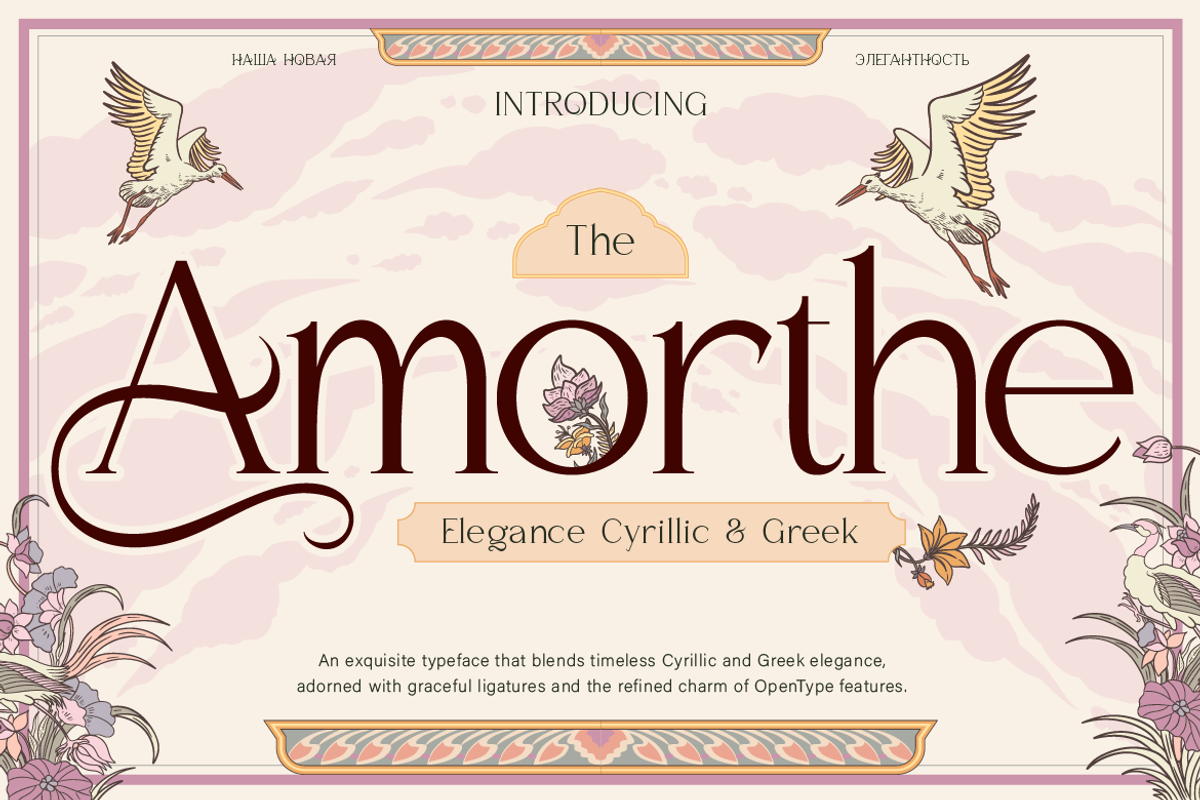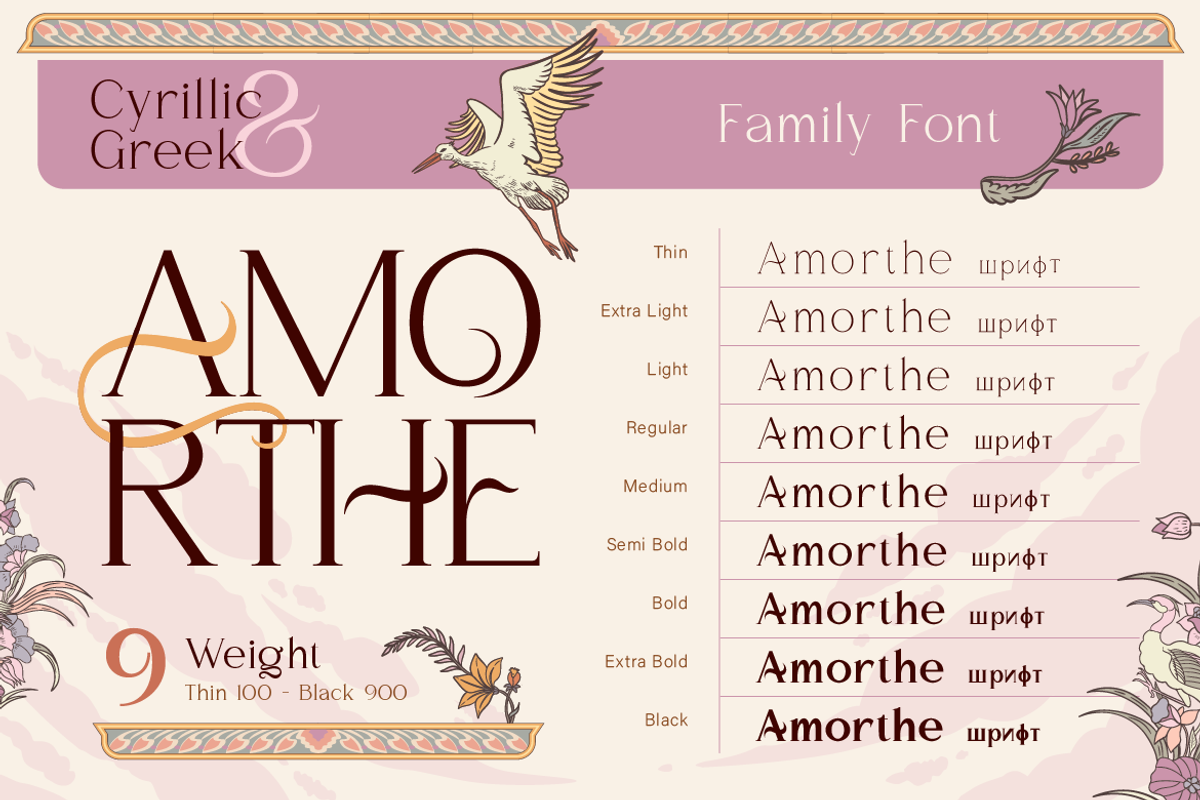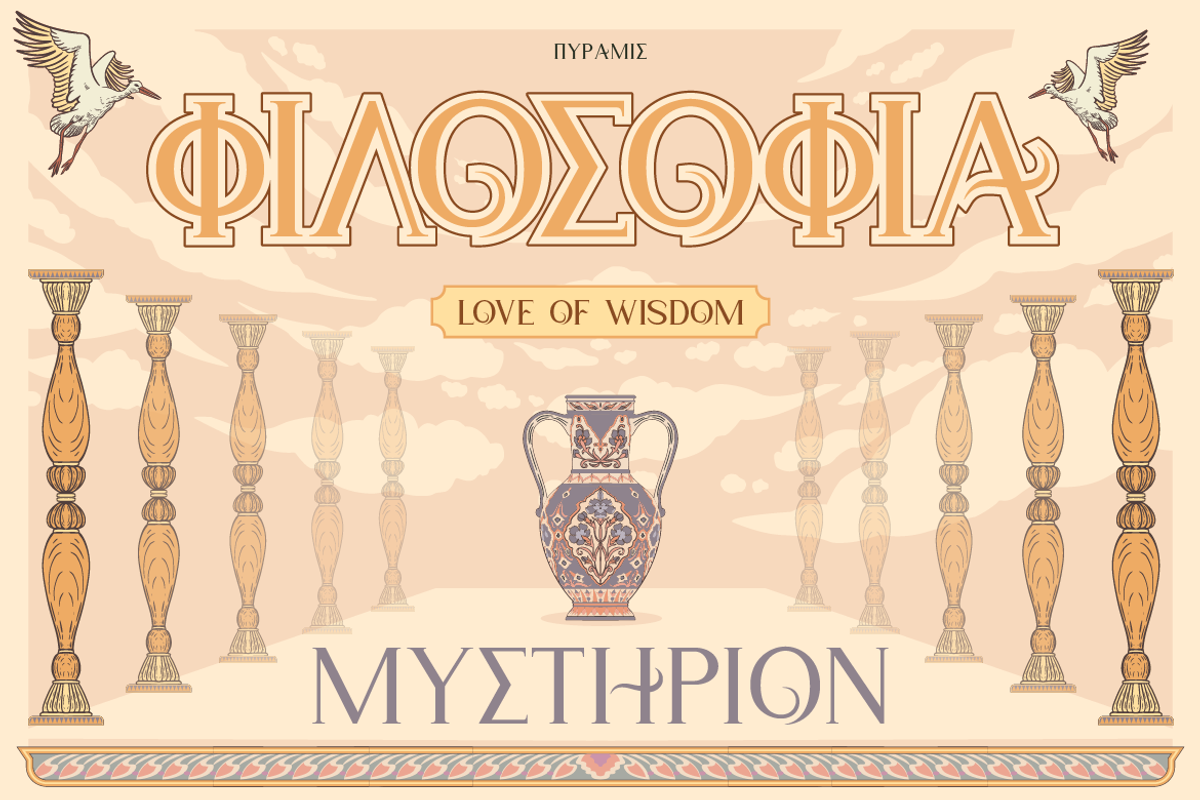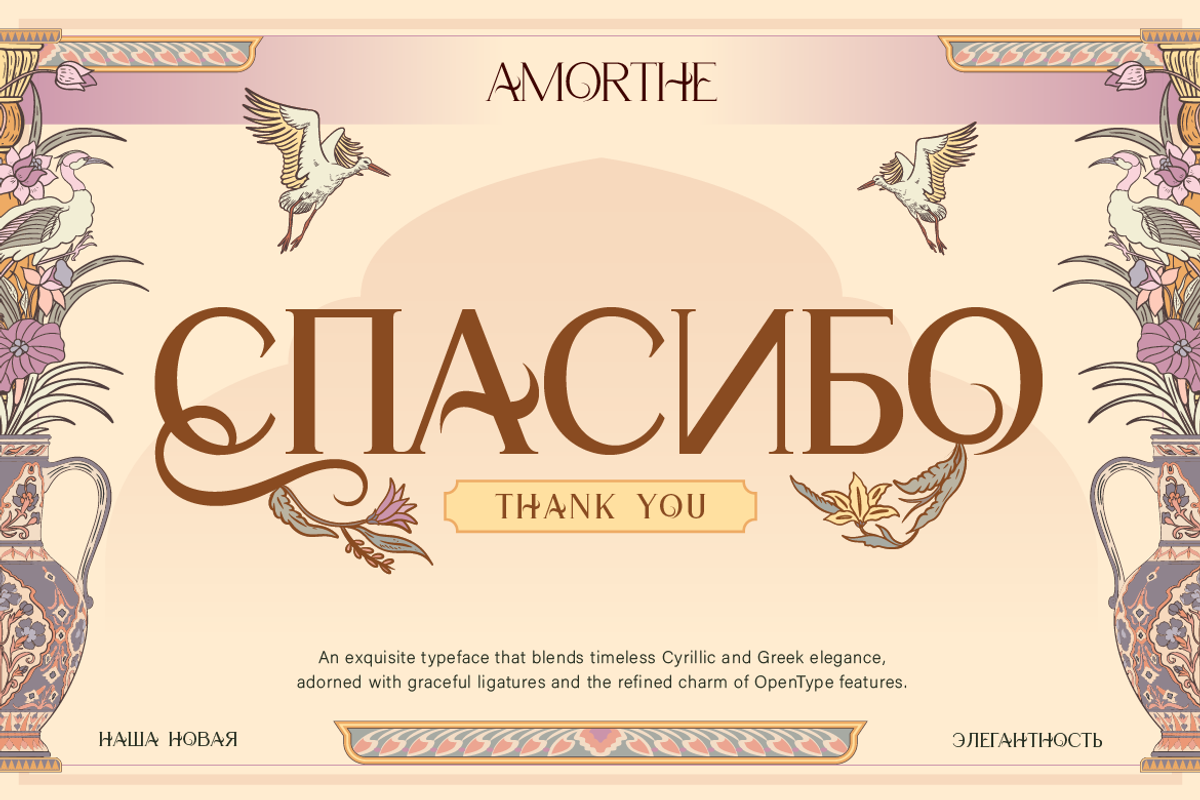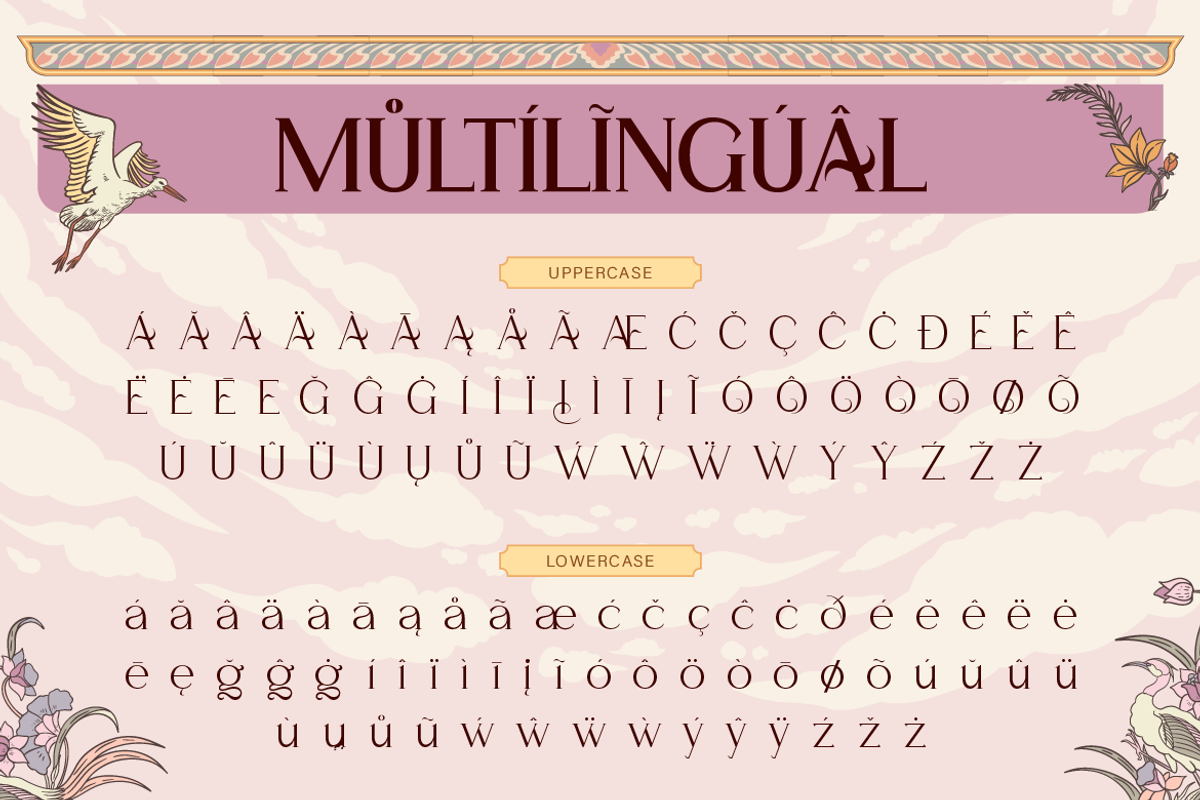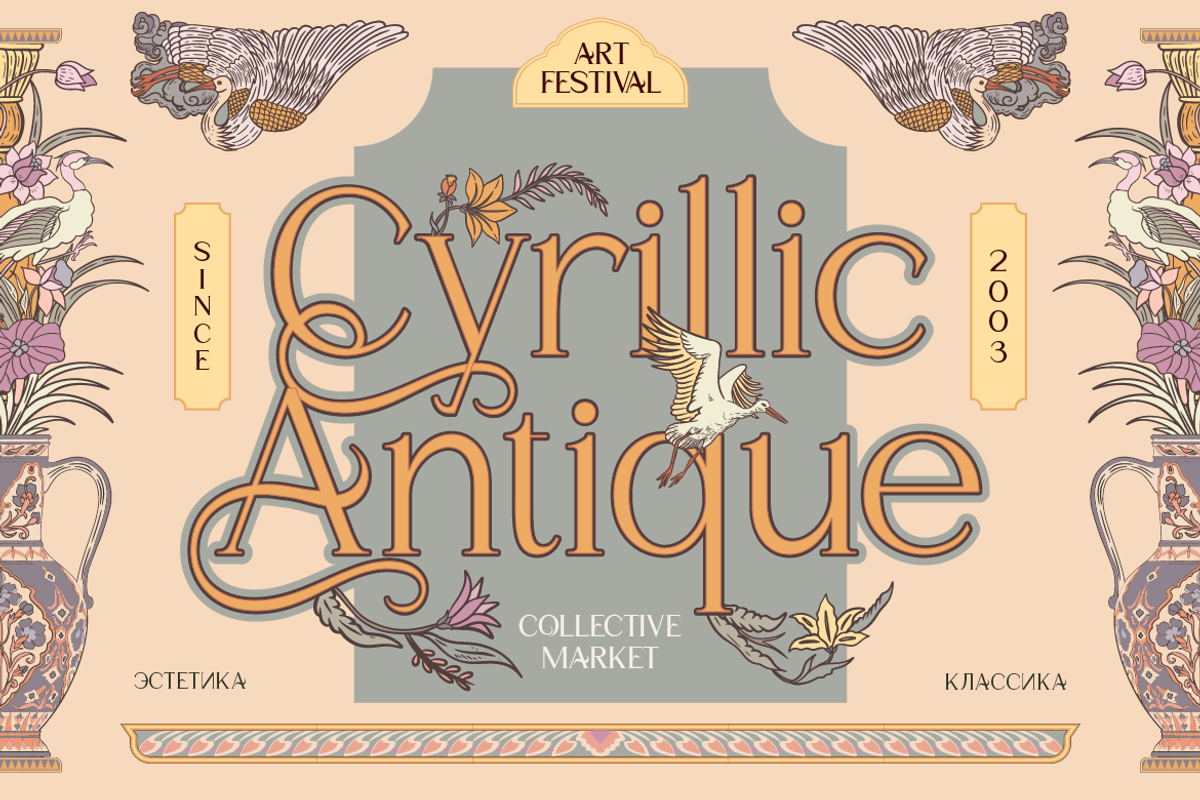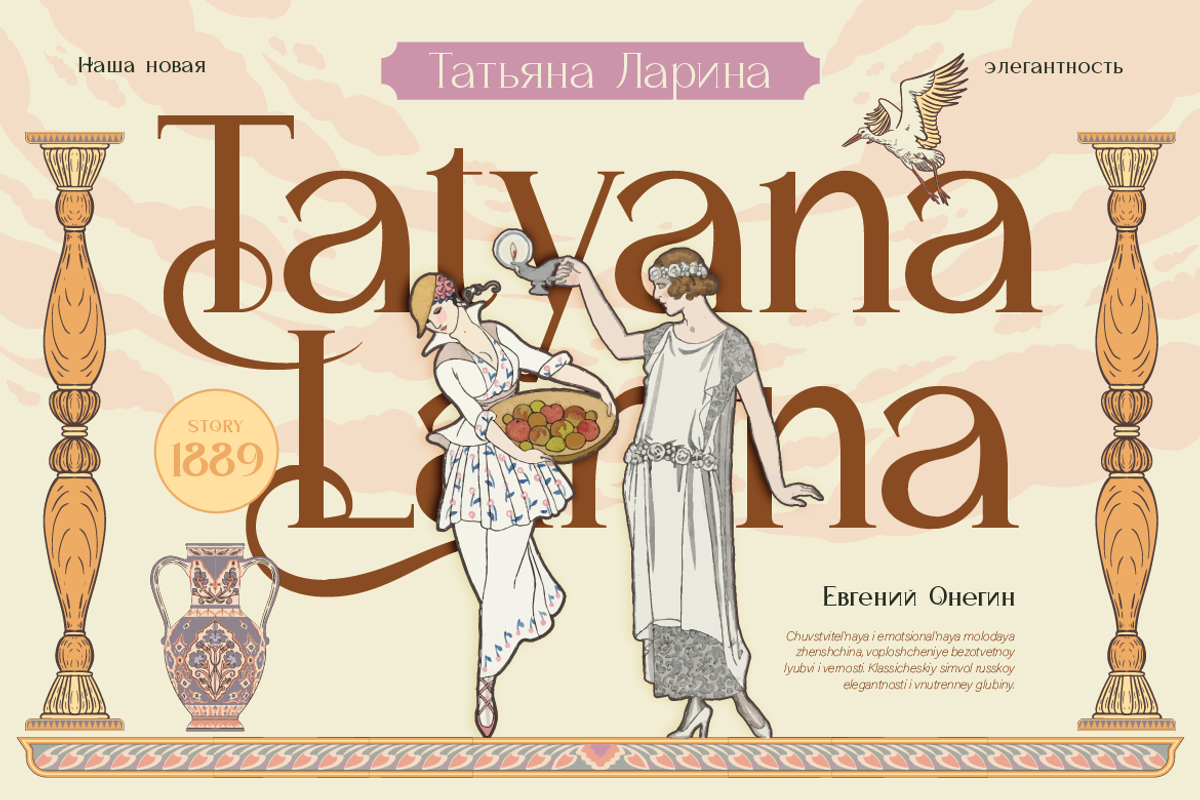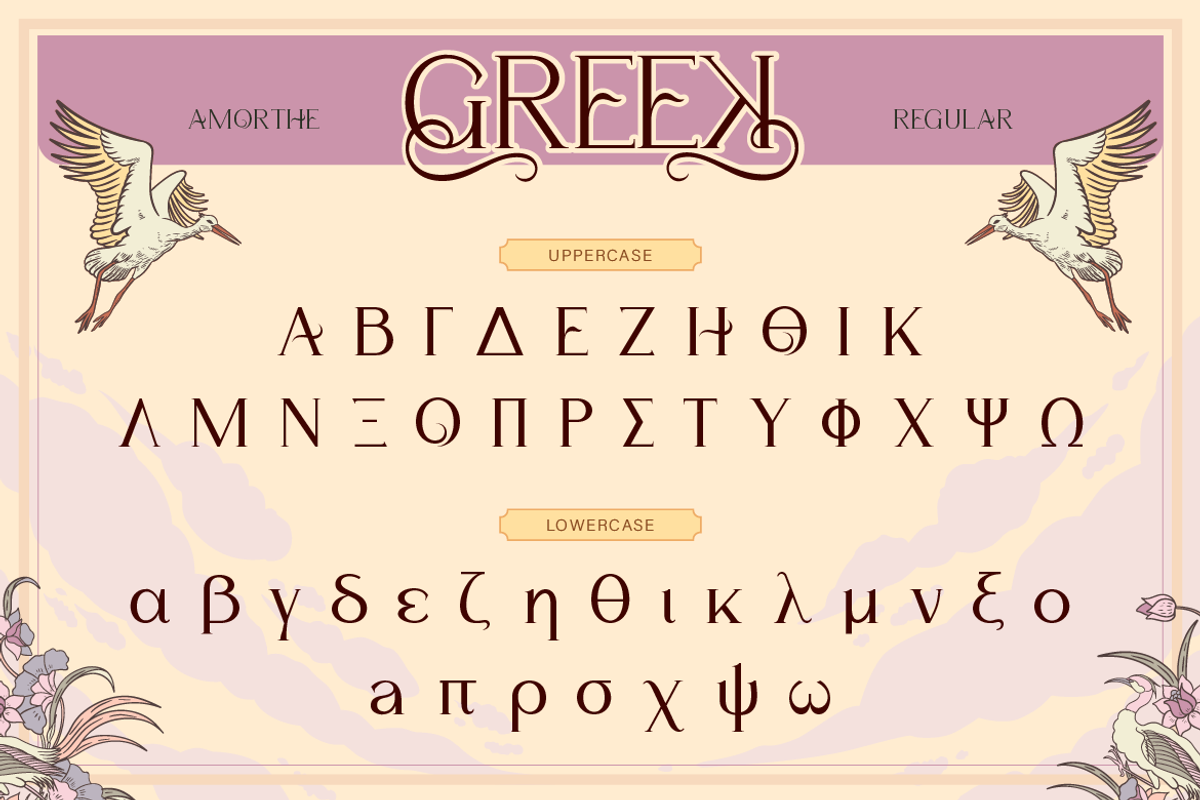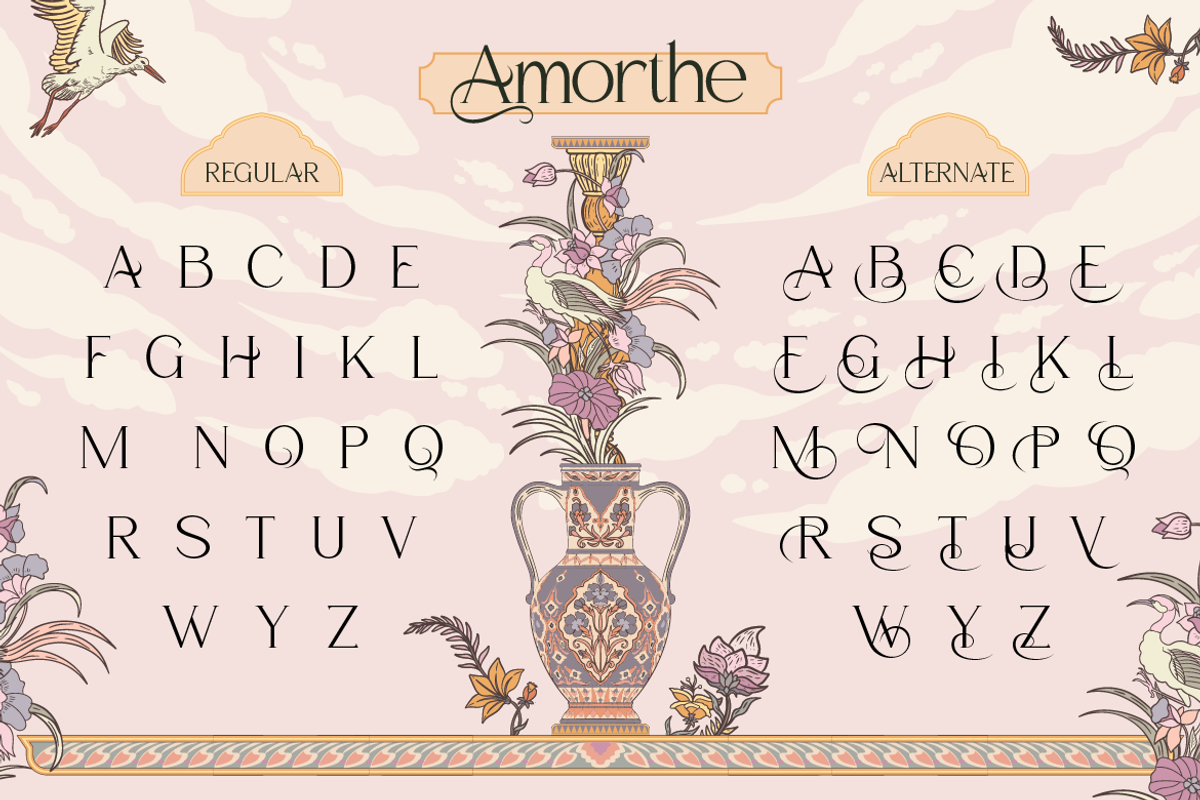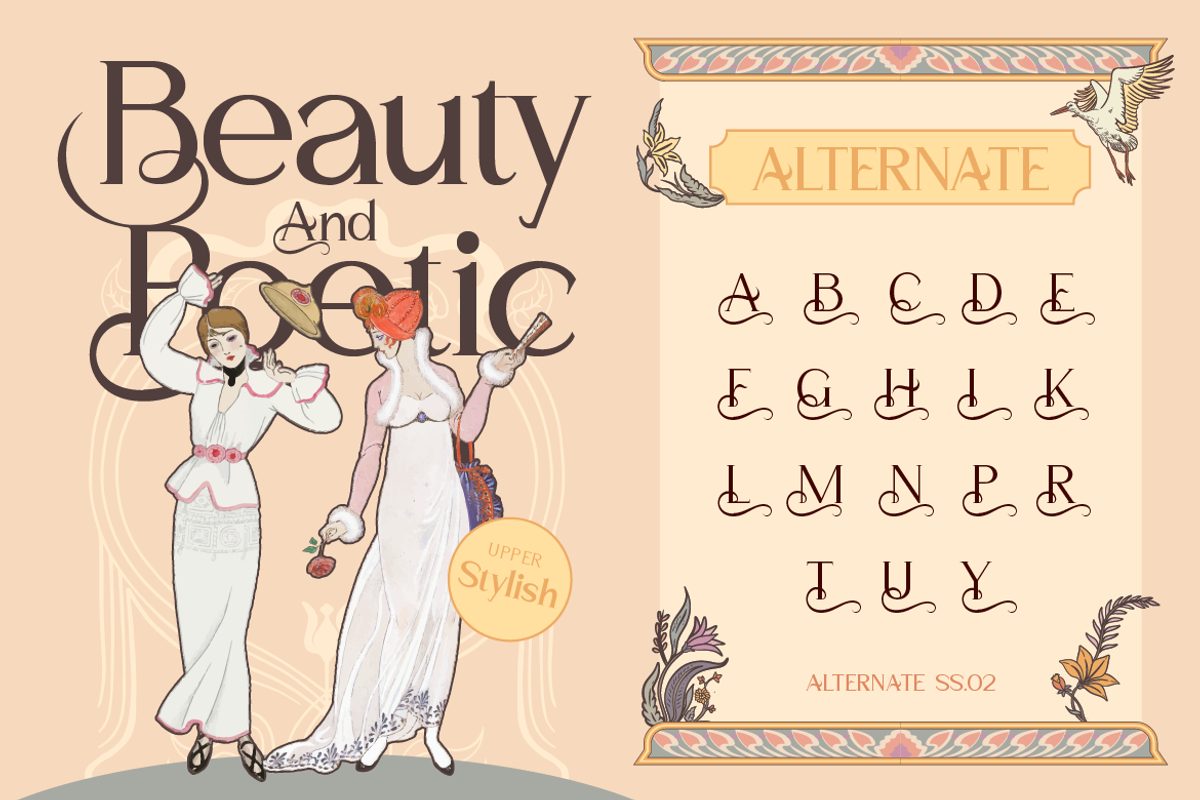
Amorthe
Introducing Amorthe, where timeless elegance dances with modern versatility. A multilingual powerhouse (Cyrillic, Greek, and beyond), adorned with playful alternates that whisper secrets to the serifs. Why it’s extraordinary:
9 weights from whisper-thin to bold statements—perfect for headlines, body text, and everything in between.
Dual charm: Timeless like Chanel No. 5, yet fresh with customizable alternates.
For the refined taste: Luxury brands, editorial spreads, and premium packaging (wine, Belgian chocolates, perfume, skincare—yes, it’s that chic). If Amorthe were human, she’d be Audrey Hepburn: effortlessly classy, fluently multilingual, and hiding delightful surprises beneath her grace.